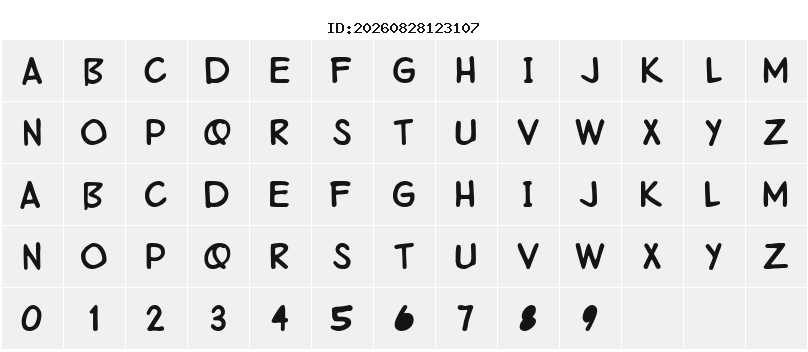
Tonio Preview
About Tonio.ttf
Tonio.ttf is a modern, elegant sans-serif font designed for ultimate readability and visual harmony. Perfect for branding, headlines, web design, and print materials.